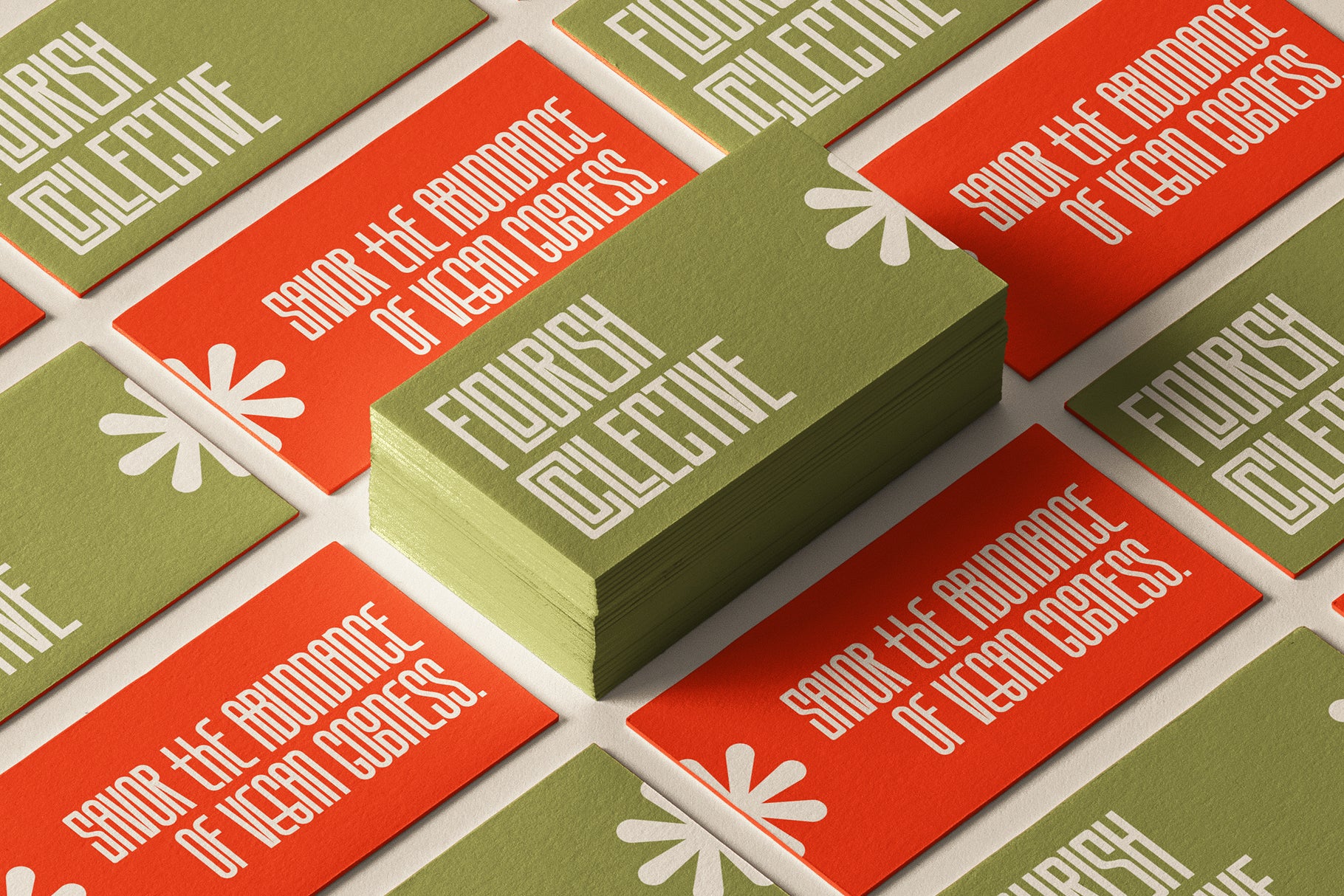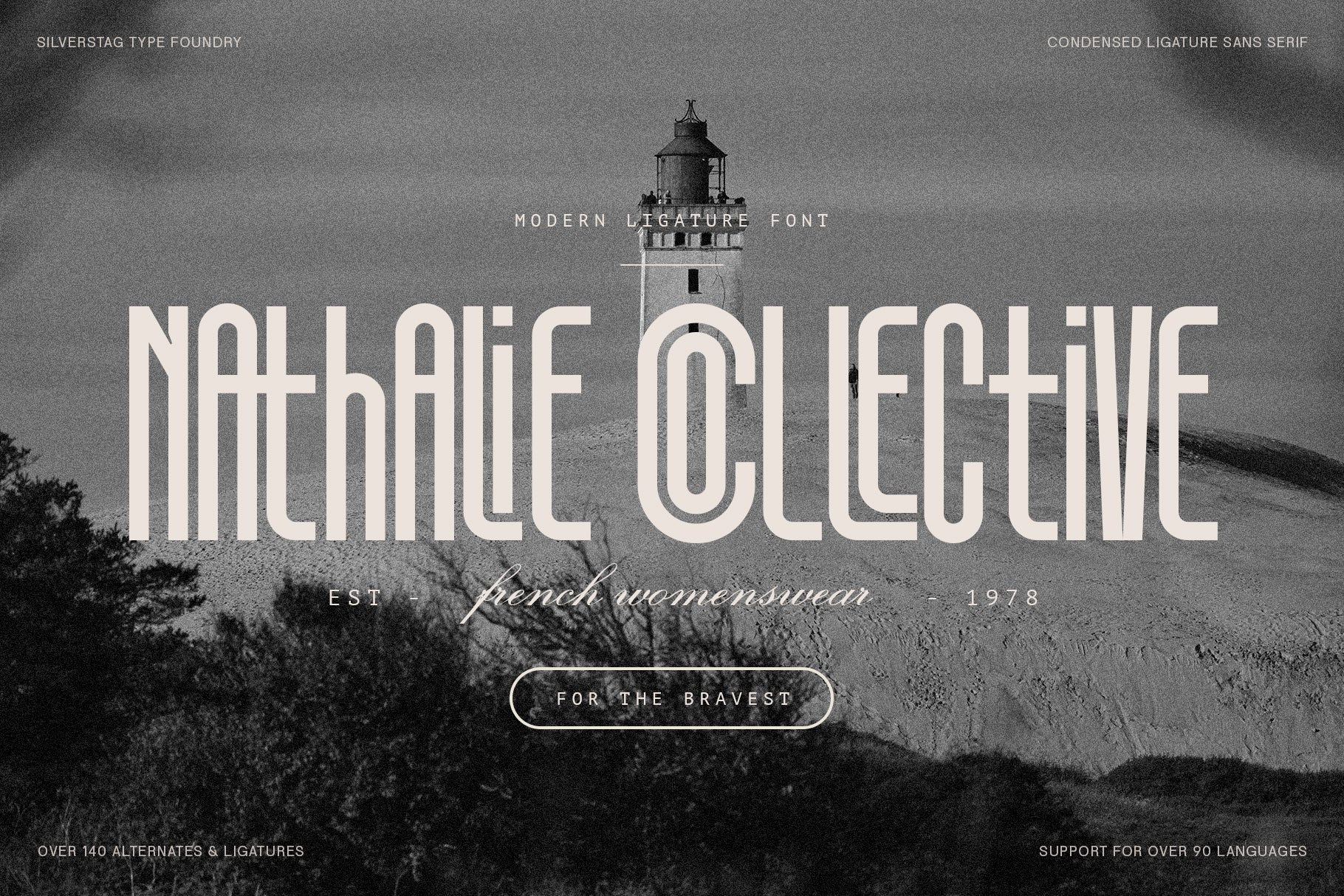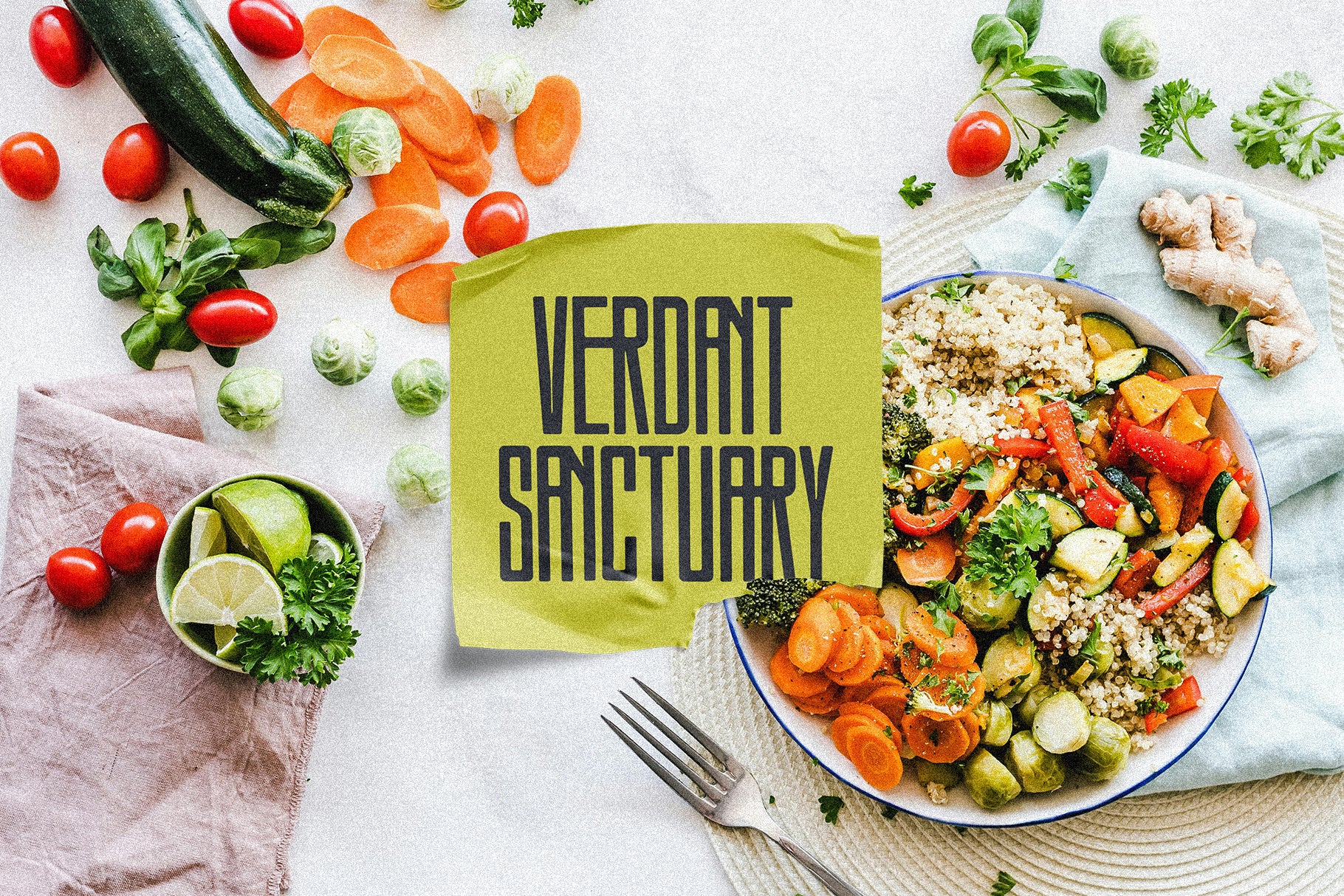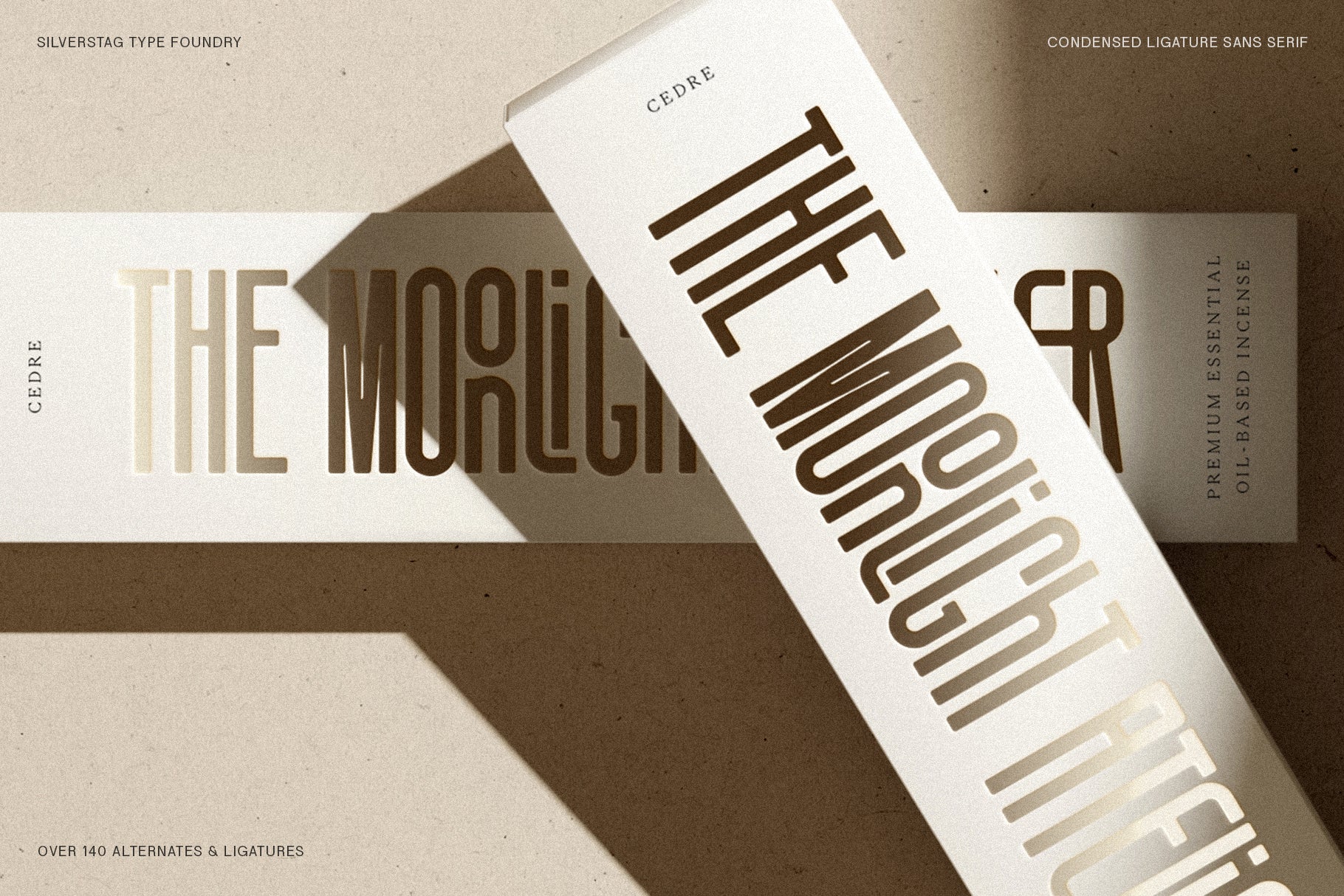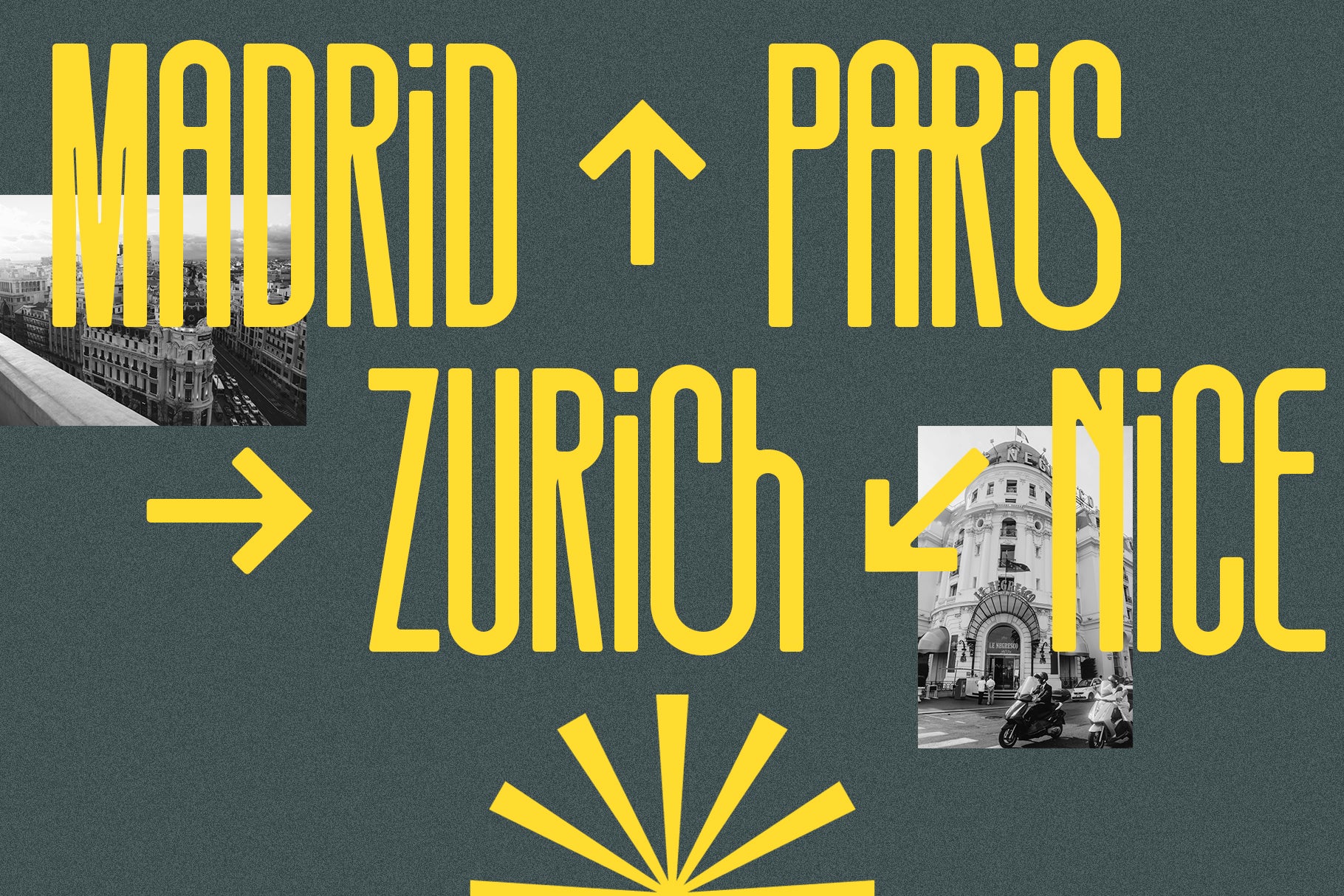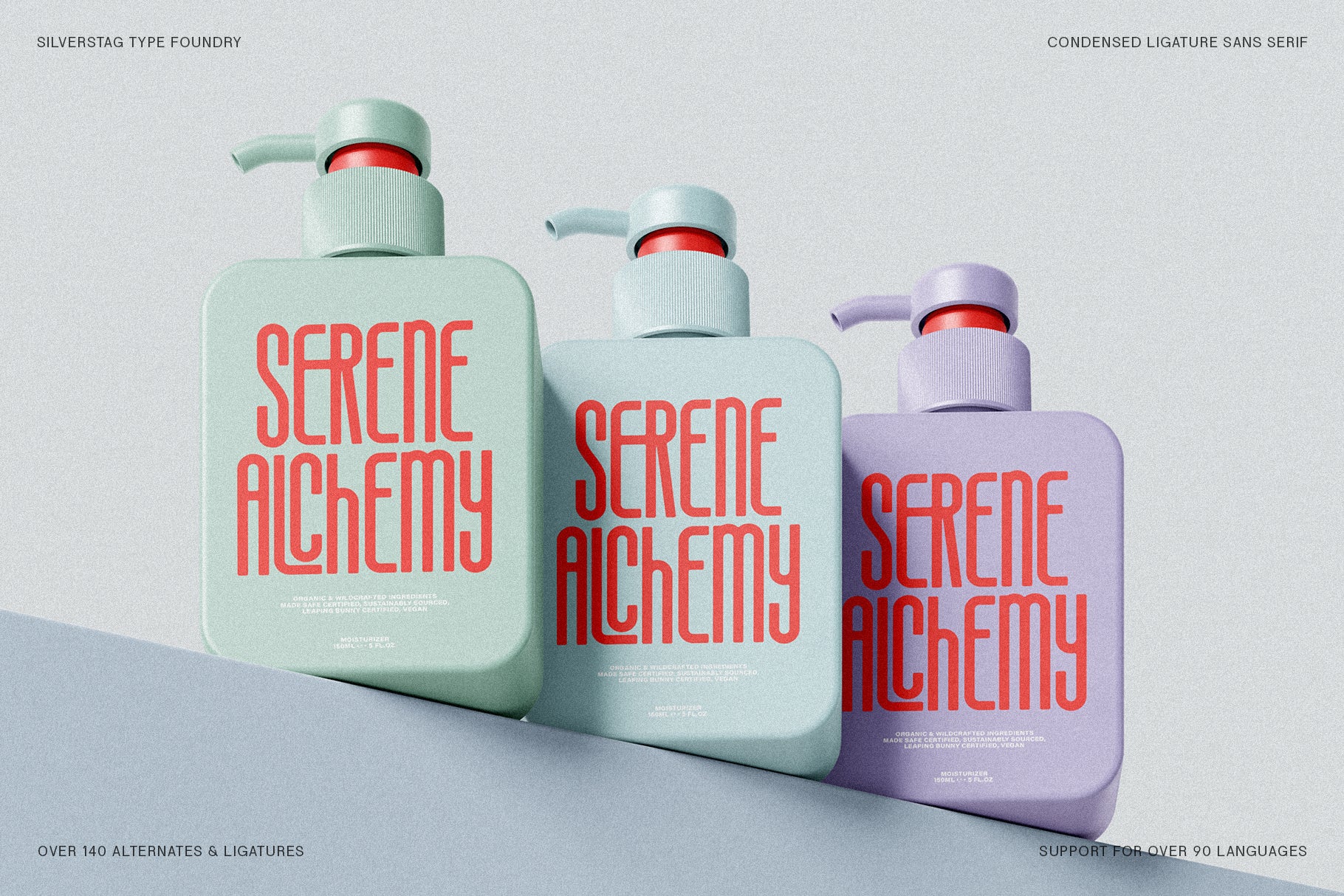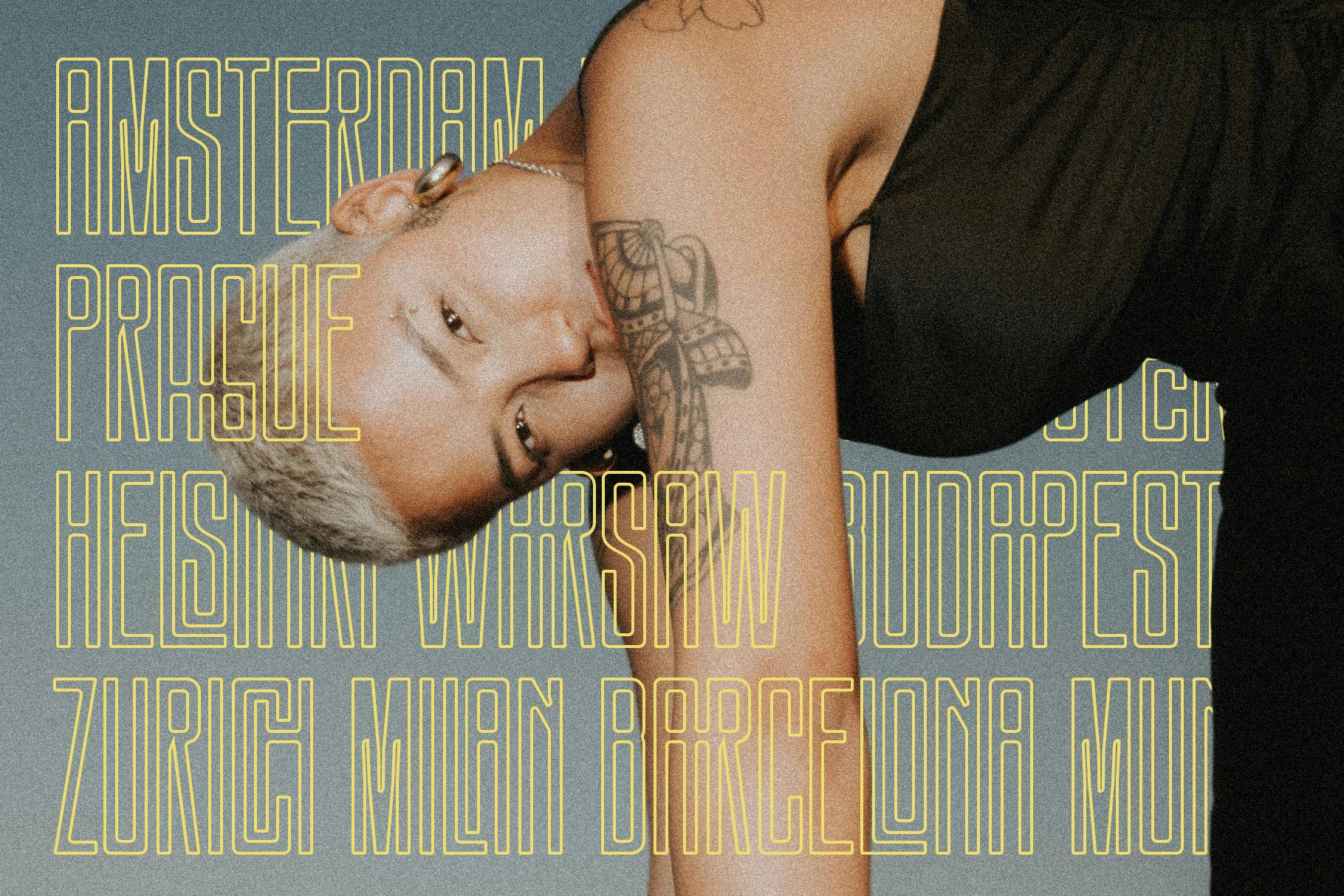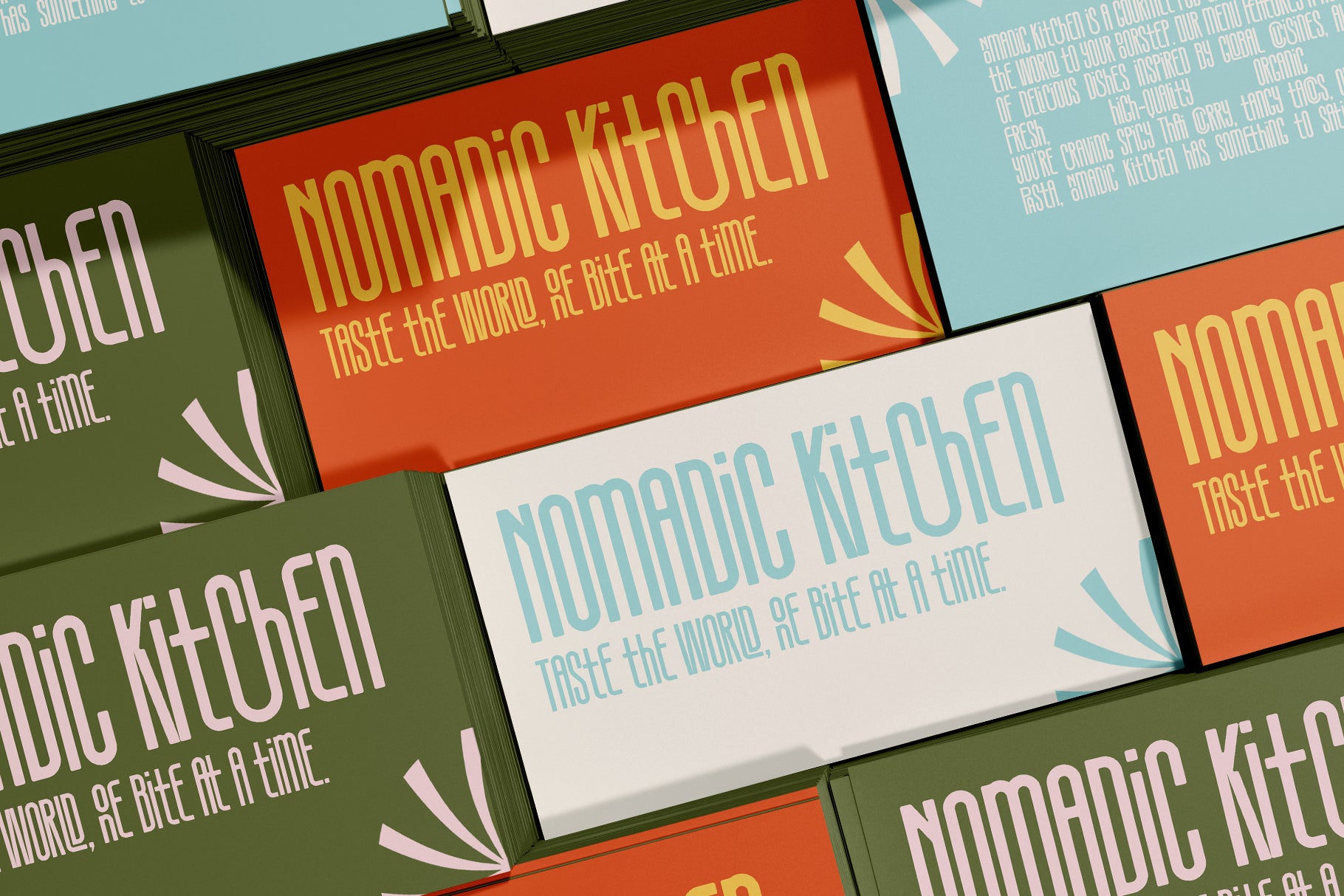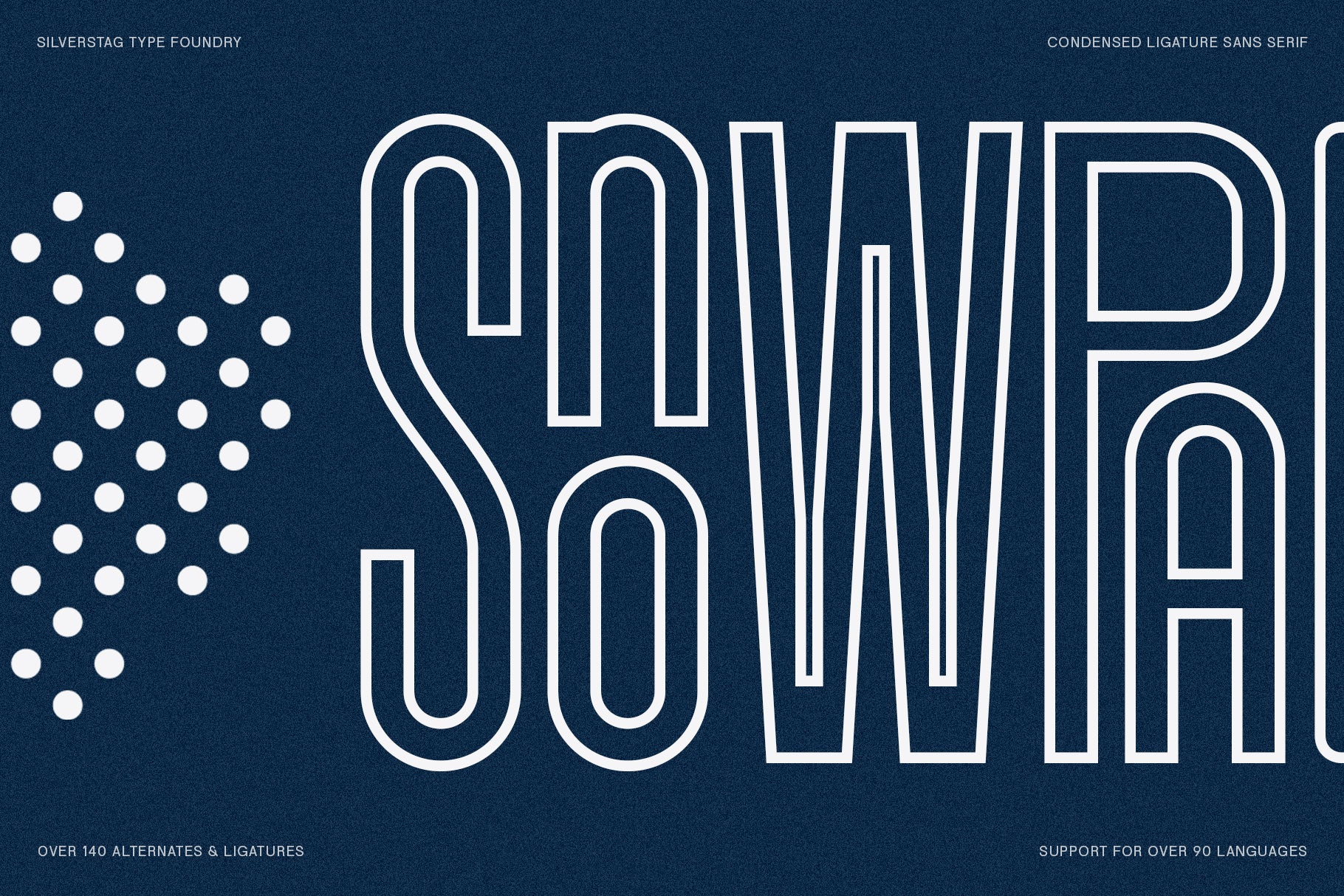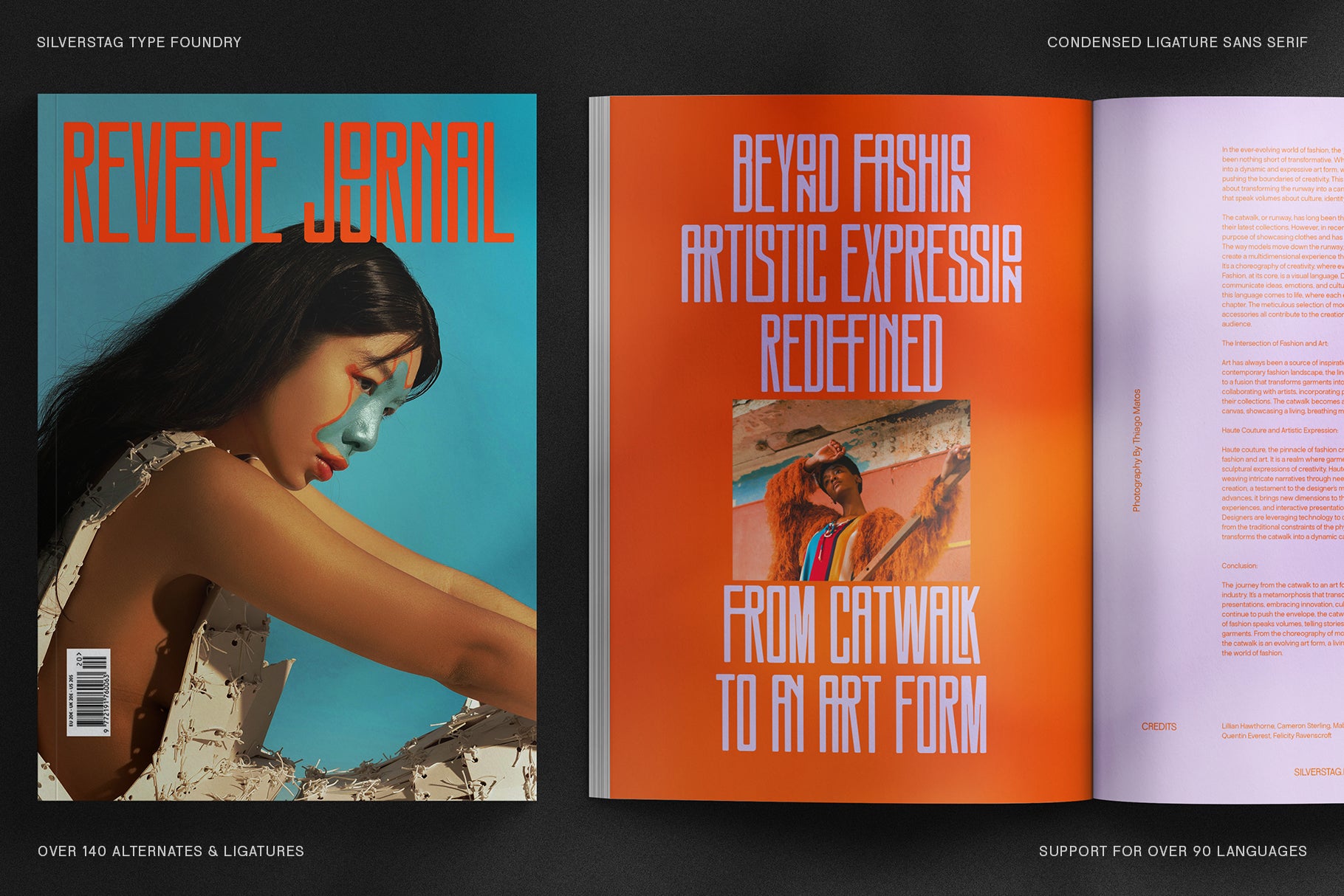
SLTF Snowpack - Ultra Condensed Typeface
SLTF Snowpack is a bold, ultra-condensed sans serif typeface designed to maximize space without compromising style. With its tight letterforms, clean lines, and over 140 ligatures and alternates, Snowpack is ideal for designers who want to make a sharp, modern statement.
This contemporary font comes in four distinct styles—Regular, Regular Outline, Round, and Round Outline—offering you the flexibility to mix, layer, and create typographic depth across any layout. Whether you’re designing minimalist posters, sleek packaging, fashion branding, or tech-forward interfaces, Snowpack adapts seamlessly.
With support for 90+ languages, it’s perfect for global creatives seeking versatility, clarity, and a bold visual presence. Snowpack’s ultra-condensed construction is especially effective in headline treatments, logo design, and editorial layouts where space is limited but impact is essential.
SLTF Snowpack on a Flourish Collective brand mockup, the line savor the abundance of fresh goodness set across stacked red and green business cards.
SLTF Snowpack reading Verdant Sanctuary on a yellow note over a flat-lay of a roasted vegetable grain bowl with carrots, tomatoes and lime.
SLTF Snowpack travel poster - Madrid, Paris, Zurich and Nice in yellow caps with arrows on dark teal, beside a black and white Madrid Gran Via photo and a sunburst.
SLTF Snowpack city-name wall in olive outline caps - Amsterdam, Prague, Warsaw, Budapest, Milan, Barcelona, Munich - over a portrait of a reclining tattooed figure.
SLTF Snowpack hero in large outline caps on a dark navy background with a halftone dot motif, noting 140 plus alternates and 90 plus languages.
SLTF Snowpack alternates showcase - greybeard, wrangled, barefaced, beastliest, scorpius, analytical - set in orange ultra-condensed caps on cream.
SLTF Snowpack reading Questions and Answers on a slate-blue background with a harlequin diamond pattern and a join me on Instagram line.
SLTF Snowpack diagonal world-city wall over a beach parasol photo - Madrid, New York, Los Angeles, Chicago, Prague, Dublin, Miami and Las Vegas in outline caps.
SLTF Snowpack alternates showcase, the word glance repeated in solid and outline caps on mint green with intro text on 140 plus alternates and ligatures.
SLTF Snowpack city-name wall on red, orange and blue bands - Chattanooga, Amsterdam, Berlin, Rome, Madrid, Paris, Lisbon, Prague, Athens, Stockholm and Birmingham.
SLTF Snowpack spelling Flow on two framed prints, one red with outline caps and one lime with solid caps, a display showcase.
SLTF Snowpack diagonal European city wall over an olive-toned photo - Rome, Prague, Budapest, Stockholm, Dublin, Copenhagen, Warsaw, Helsinki, Lisbon and London.
SLTF Snowpack outline display lettering repeated across a natural canvas tote bag resting on sunlit stone steps, a brand mockup.
SLTF Snowpack multilingual greetings - hello, bonjour, ciao, hola, konichiwa - set in black ultra-condensed caps with red asterisks on cream, showing 90 plus language support.
SLTF Snowpack on a Nathalie Collective French womenswear logo set over a black and white lighthouse coastline photo.
SLTF Snowpack spelling The Moonlight Atelier across an angled three-dimensional banner showcase on a warm neutral background.
SLTF Snowpack on Serene Alchemy skincare pump bottles in mint, blue and lilac, a cosmetics packaging mockup.
SLTF Snowpack on a Nomadic Kitchen brand mockup, taste the world one bite at a time set across stacked orange, cream and olive business cards.
SLTF Snowpack on a Reverie Journal fashion magazine spread - beyond fashion, artistic expression redefined, from catwalk to an art form - over an orange layout.
SLTF Snowpack on Earth and Ale drink cans in green, orange, purple and lilac with fresh raspberries, a beverage packaging mockup.
SLTF Snowpack on a Carllagard business card resting against woven ribbon furniture straps, a brand stationery mockup.
SLTF Snowpack on Radiance Redefined cosmetic boxes in teal, orange and green with diamond patterns, reading luxurious formulas.
SLTF Snowpack on two Lumibus fashion magazine covers featuring black and white photos of a woman in a field, a spring summer issue.
SLTF Snowpack on stacked green Surged Earth packaging boxes reading savor the flavor, fuel your frenzy, a product mockup.
SLTF Snowpack on a Nomadic Kitchen card wall in teal, orange, cream and olive, taste the world one bite at a time repeated across the layout.
SLTF Snowpack spelling The Moonlight Atelier on a slide matchbox-style box mockup with matches visible, on a warm neutral surface.